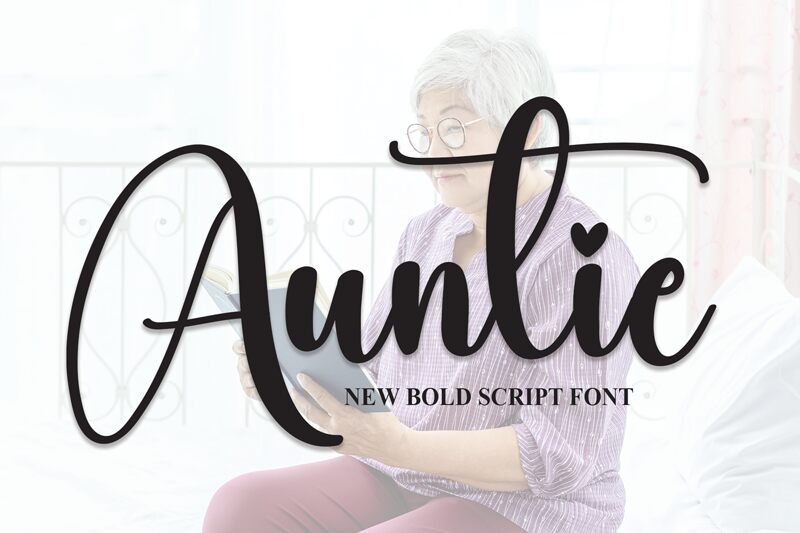
Auntie
Auntie, a stunning calligraphy font designed by Scratchones, exudes elegance and grace with its feminine vibe.
Its fluid strokes and delicate curves evoke a sense of sophistication that is perfect for wedding invitations, feminine branding projects, and fashion editorials. With its timeless charm, Auntie adds a touch of romance to any design. Whether you're creating elegant stationery or curating a fashion magazine spread, this calligraphy font will elevate your project to new heights of beauty and refinement.
Let Auntie be your go-to choice for all things glamorous and chic.